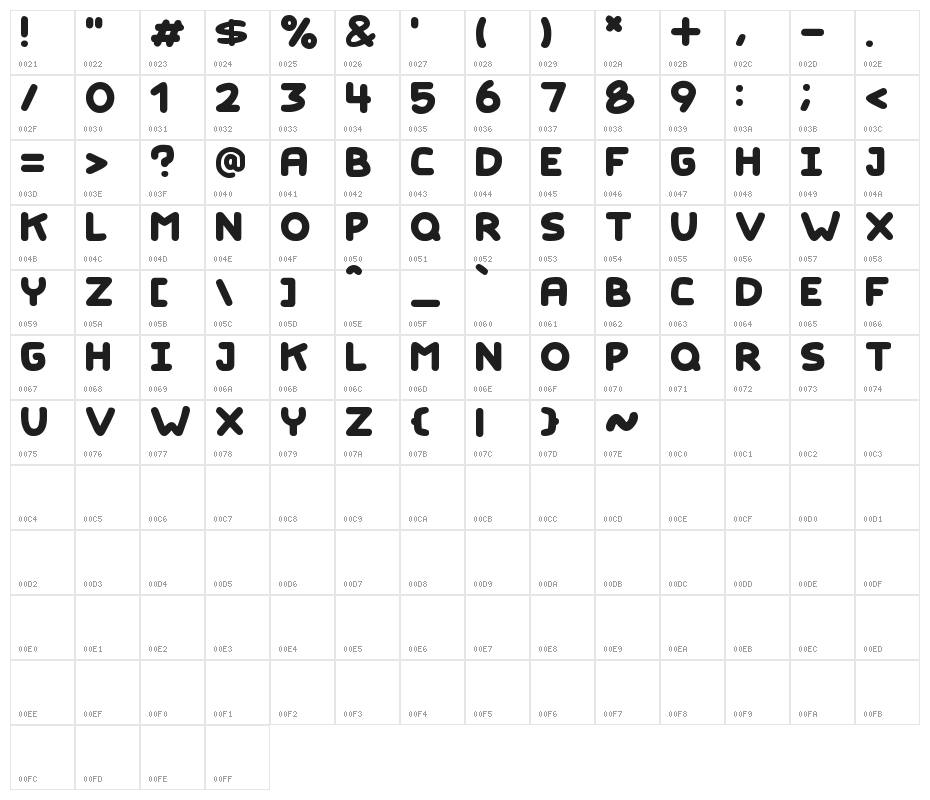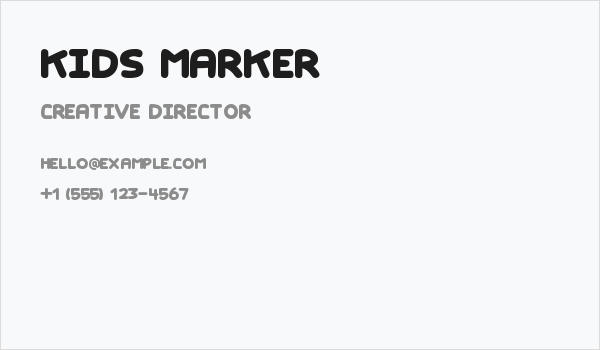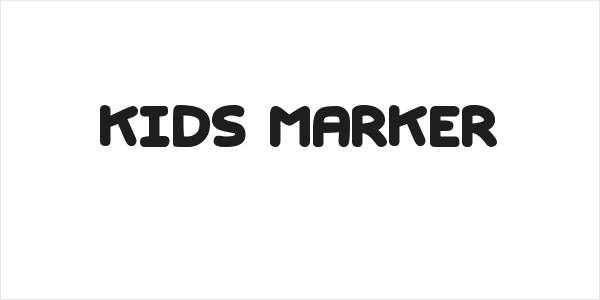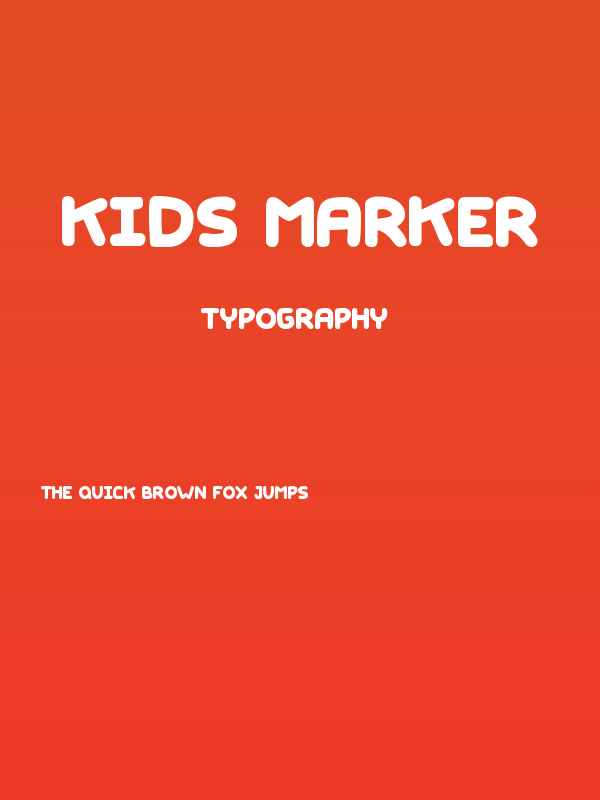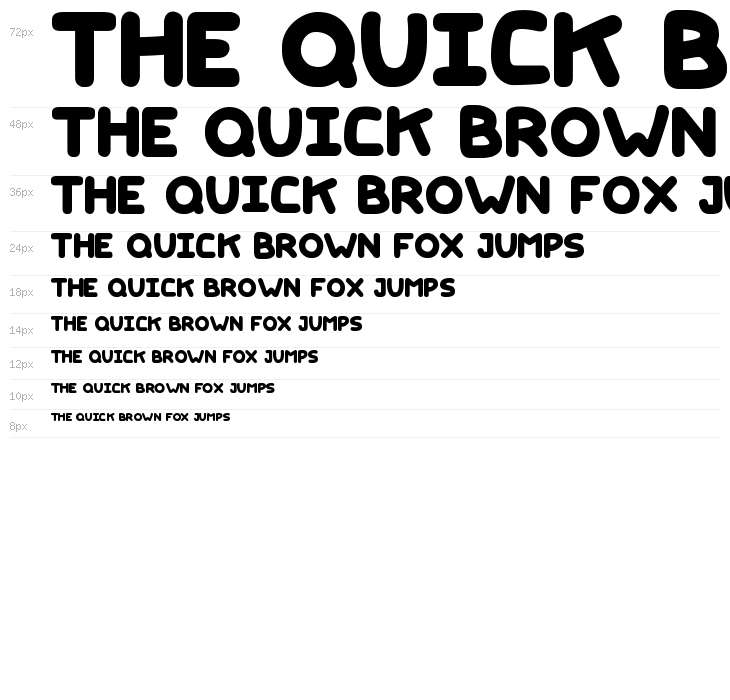
Kids Marker Font
Kids Marker Description
This playful and rounded font exudes a youthful and energetic vibe, reminiscent of handwriting with a marker. The characters are bold and slightly condensed, with smooth curves and a consistent stroke width that gives it a friendly and approachable appearance. The font maintains a uniform thickness throughout, ensuring readability while adding a touch of whimsy. Its informal style makes it ideal for projects aimed at children or those seeking a fun and casual look. The spacing between characters is normal, allowing for clear legibility without appearing too tight or loose.
Overall StylePlayful
Use CaseHeadlines, Logos, Children's materials
Proposed ProjectsIdeal for children's books, educational materials, playful branding, and casual invitations.